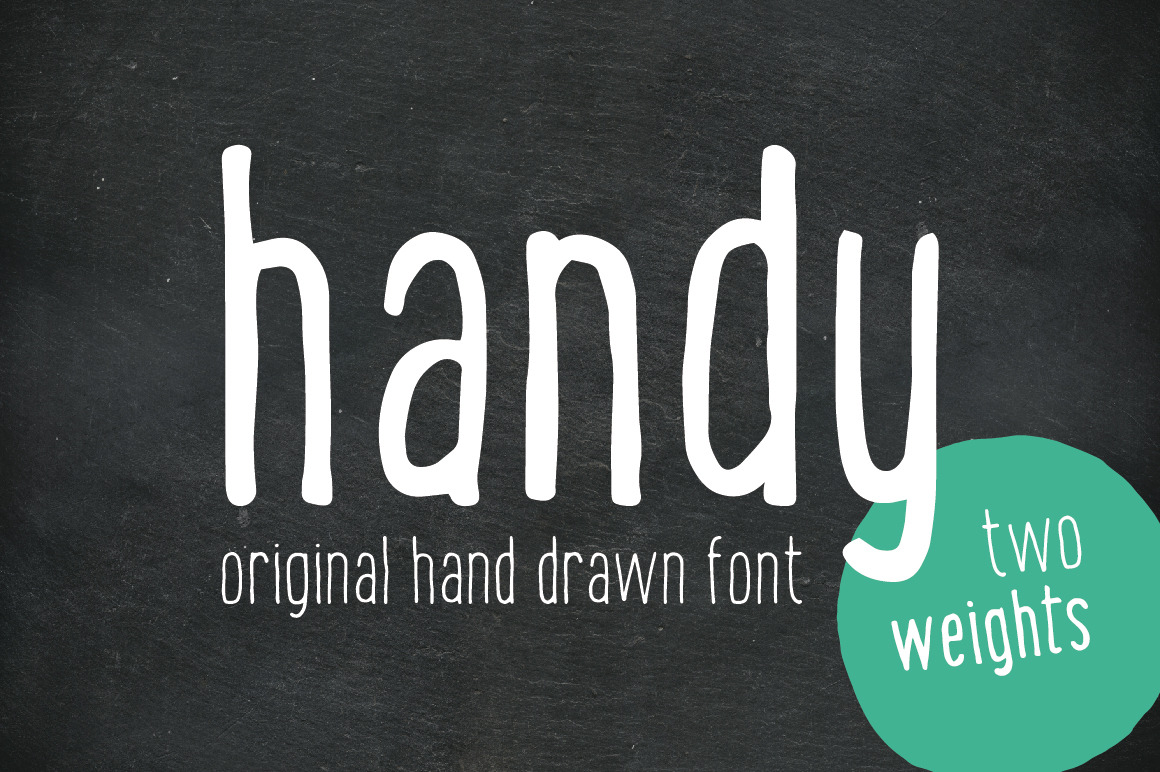
Handy - the hand drawn font
We wanted to create something nice and handy - so, plese let us to introduce to you the original handwritten sans-serif font. It's folk, easy to use and it gives your work illustrative handmade feel. Include two weights, lowercase and all basic characters.
- handy regular
- handy bold
No alternates or foreign alphabets supported at this time ( Include only characters displayed on last image)